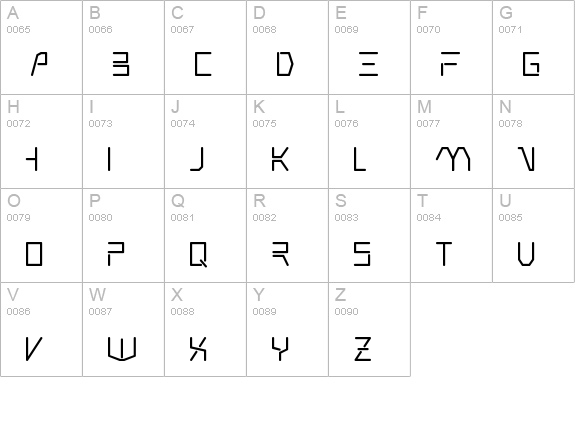
Andromeda Font Details
Andromeda font is a stunning typeface that combines modern elegance with classic appeal. Its sleek lines and sophisticated curves make it a versatile choice for various design projects, from branding to editorial design. With its clean and stylish aesthetic, Andromeda font adds a touch of sophistication to any text or headline. Best of all, Andromeda font is available for free download at FontsMarket.com. This means that you can easily access this beautiful typeface and use it in your projects without any cost. Whether you are a designer looking for a new favorite font or a business owner seeking to elevate your branding, Andromeda font is the perfect choice. Download it today and add a touch of elegance to your designs.